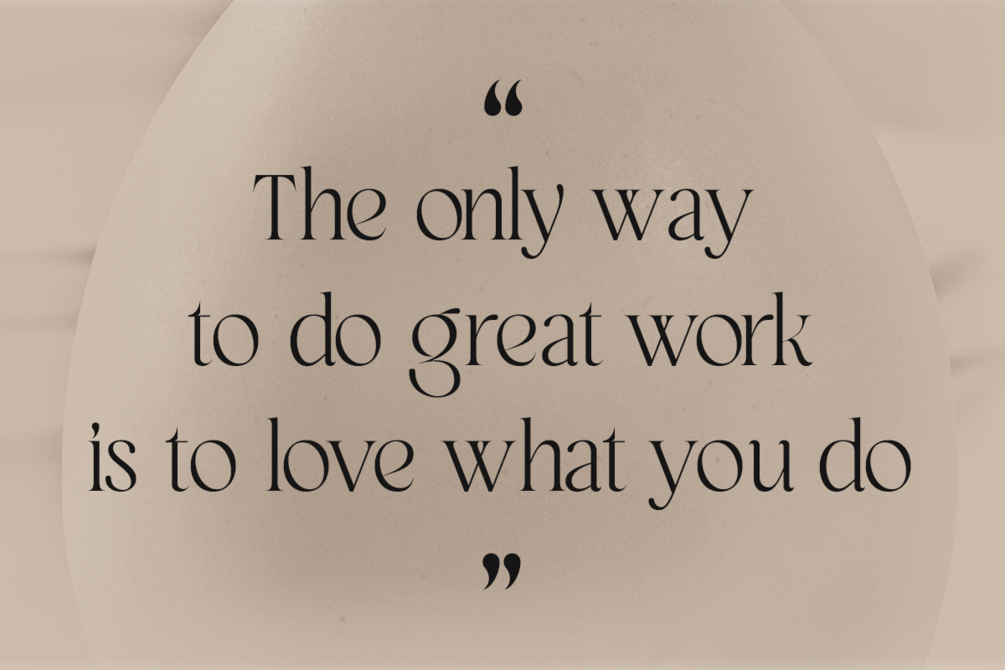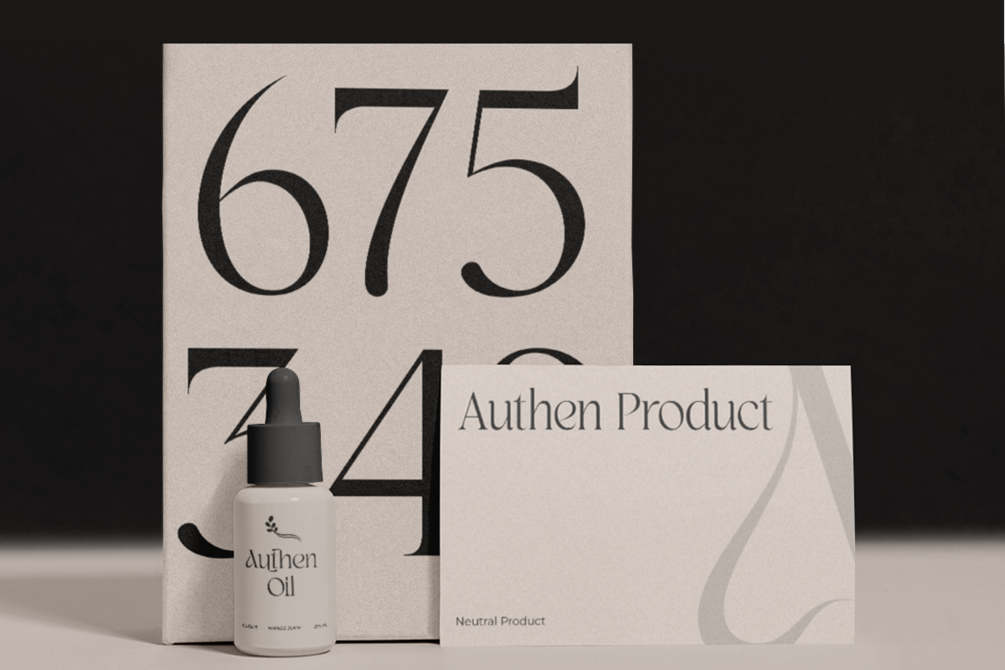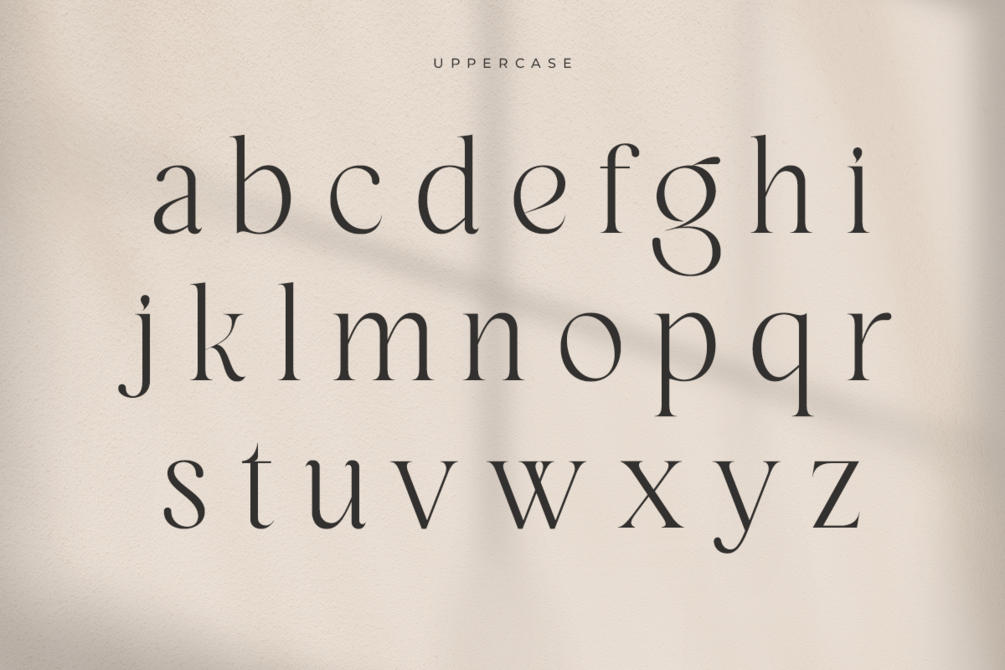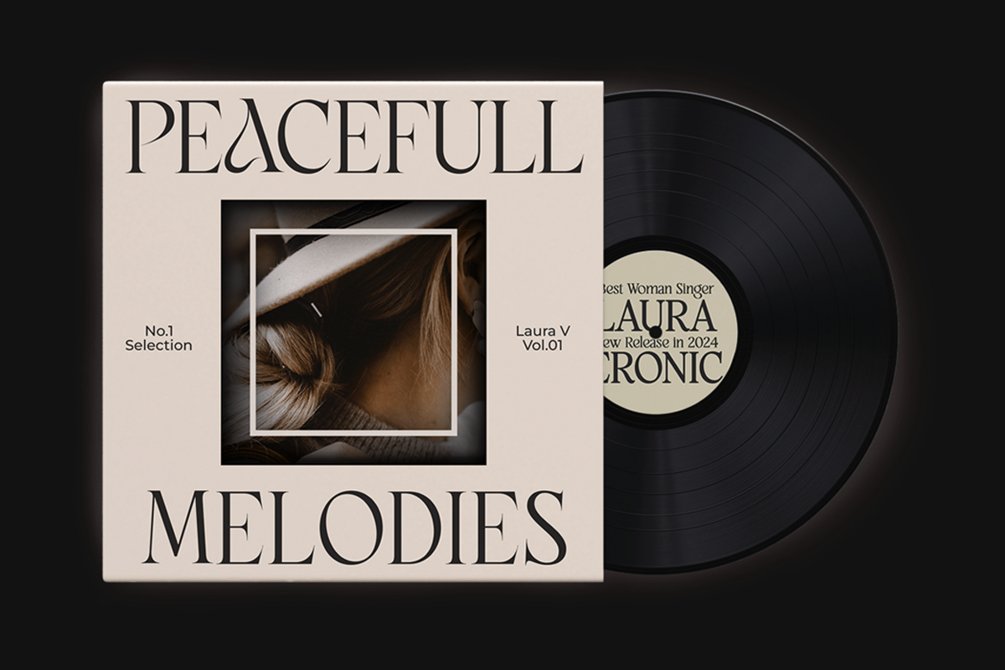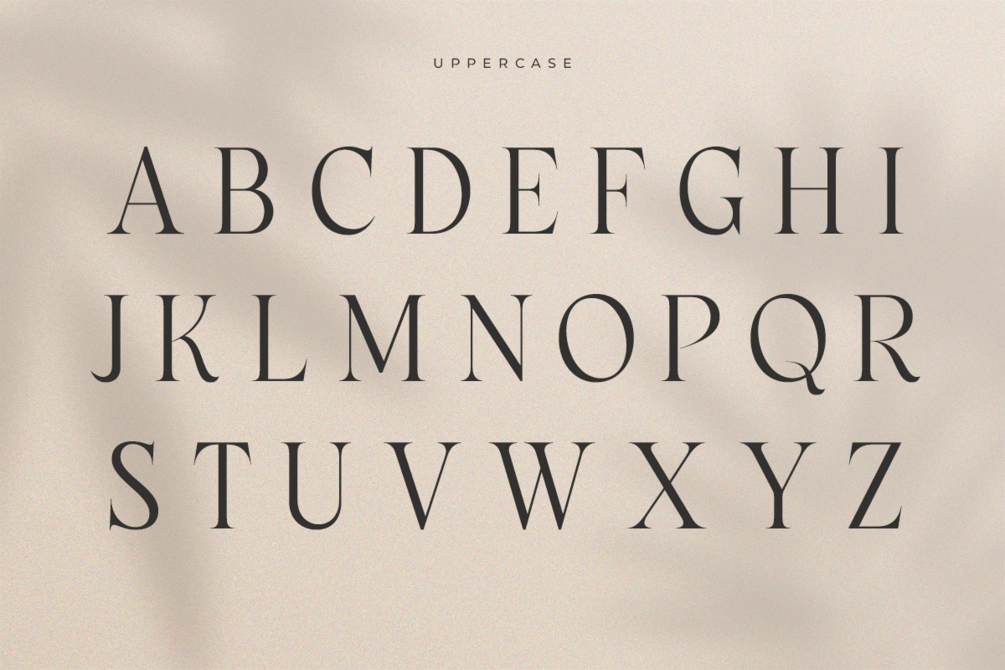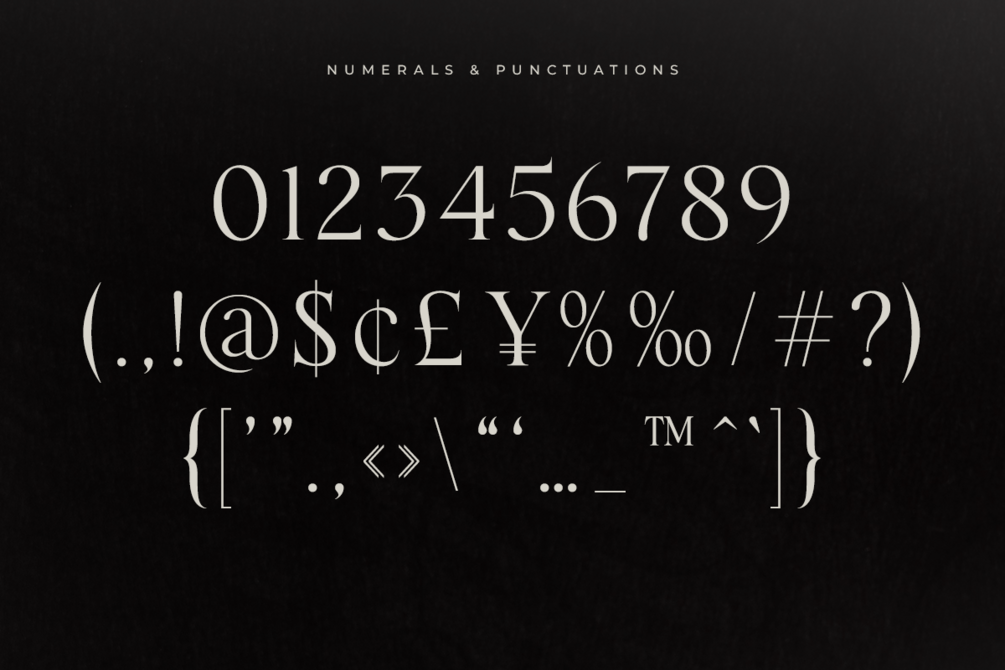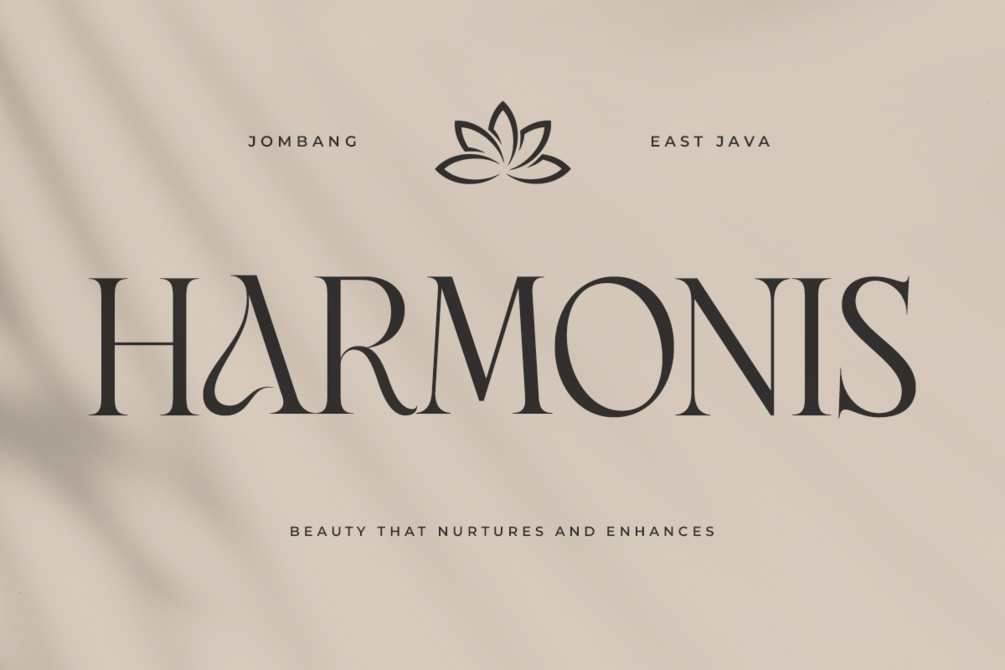
Magically - Glamour Luxury Branding Font
Introducing
Magically - Glamour Luxury Branding Font, blends elegance and luxury, perfect for upscale brands seeking sophistication. With captivating curves and meticulous design, it's ideal for logos and marketing materials, creating a dazzling impression of glamour and exclusivity.
1.Already Uppercase, Lowercase, Punctuations and Numerals
3.Extra Alternates & Ligatures Collection
4.Multilingual Support
Elevate your brand's image with 'Magically - Glamour Luxury Branding Font' and enchant your audience with timeless elegance.